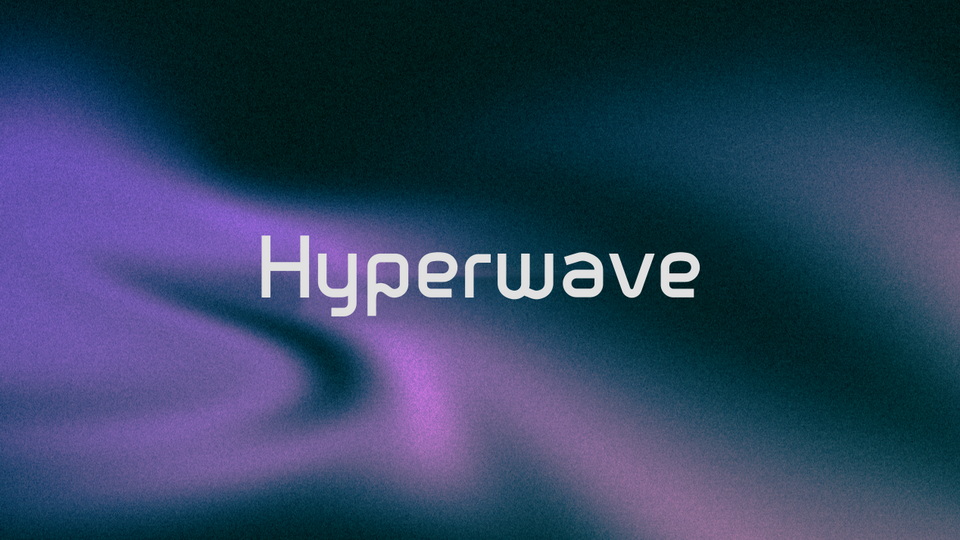
Download Hyperwave font, a modern sans serif display font with various distinctive characters influenced by a theme of tech, future and space. Hyperwave font is perfect for your headings, logos, poster text etc.
Designer: Sander Flink